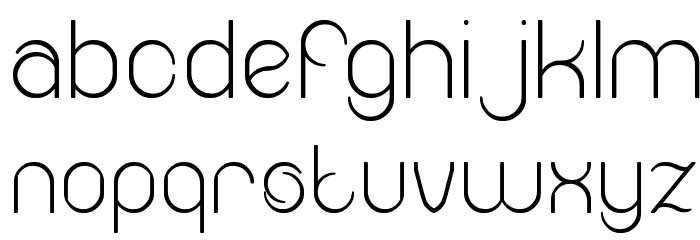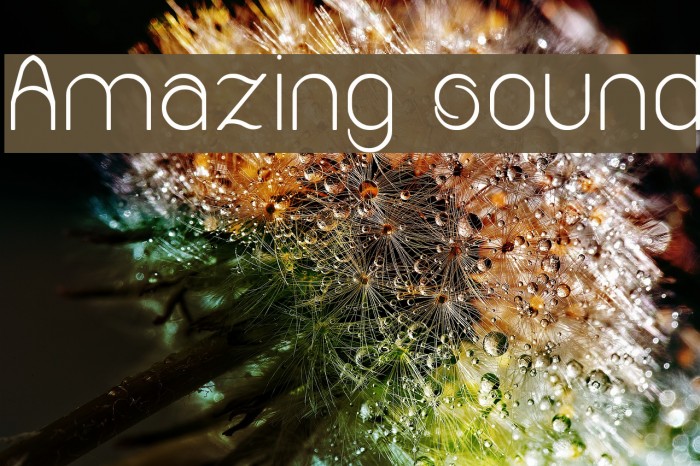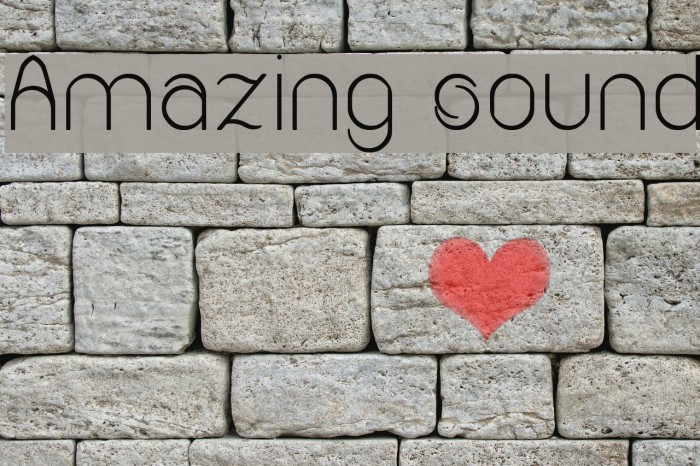
Amazing sound Font
This font features a modern and sleek design with a unique blend of geometric and rounded elements. The uppercase letters exhibit a distinct style with curved lines and open spaces, creating a sense of fluidity and movement. The lowercase letters maintain a consistent aesthetic, with smooth curves and a minimalist approach. The numerals are designed with clarity and simplicity in mind, ensuring readability. Special characters are crafted to complement the overall style, adding a touch of elegance. The font's overall appearance is clean and contemporary, making it suitable for a variety of design projects.
A modern, sleek font with geometric and rounded elements, offering a clean and contemporary look.
- Proposed Projects: Ideal for branding, advertising, digital media, and modern web design projects.
- Category: Modern
- Use Case: Headlines, Logos, Digital media